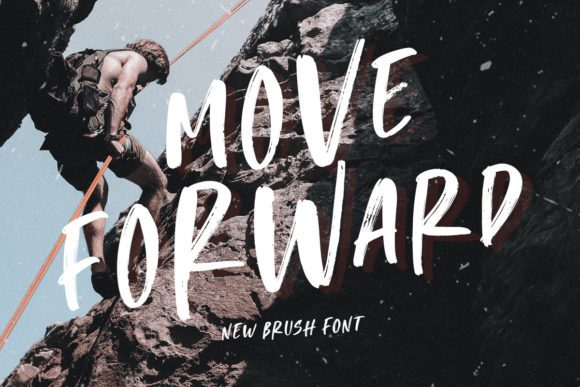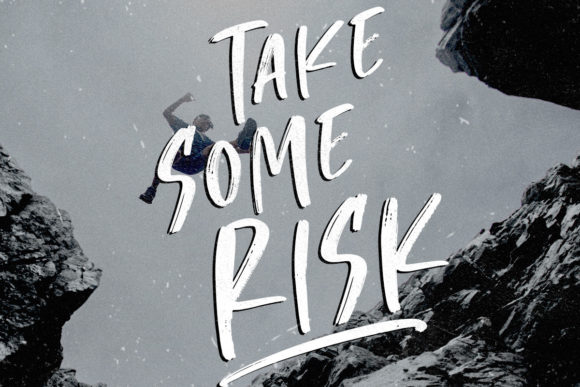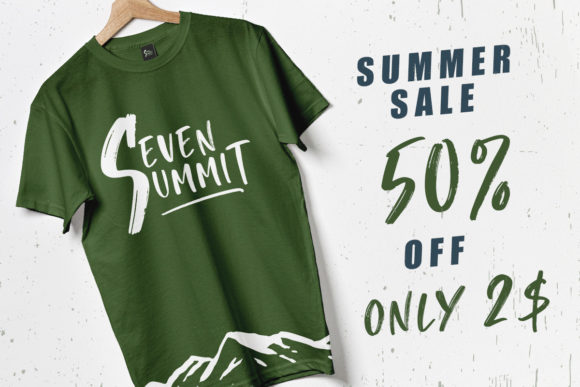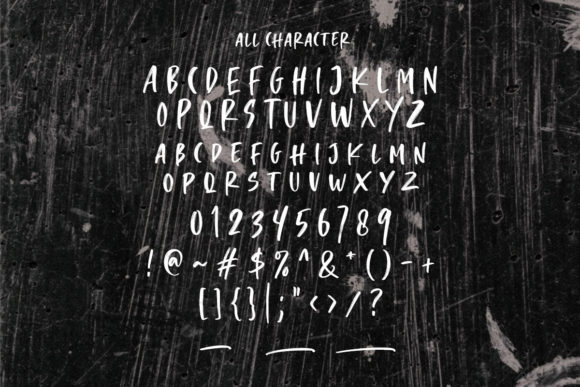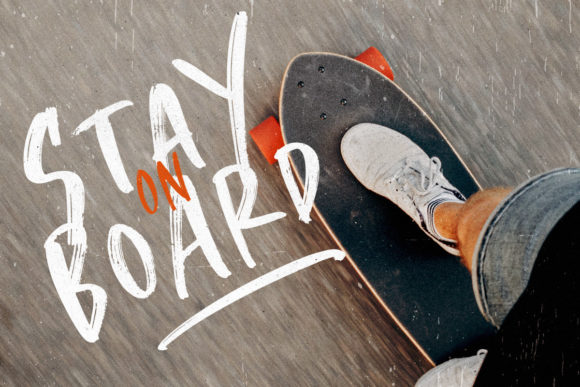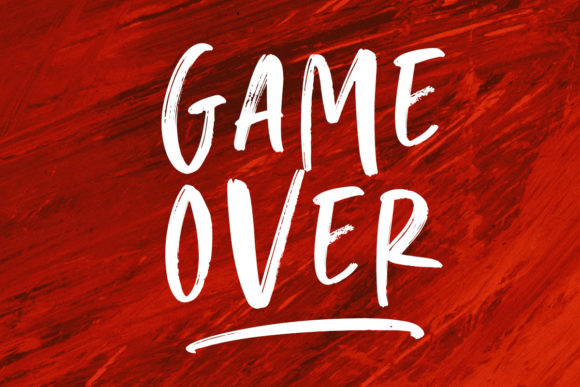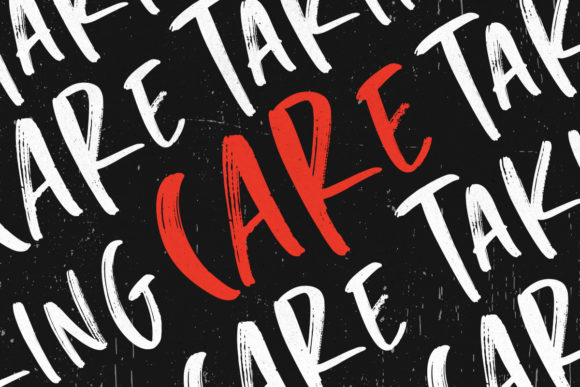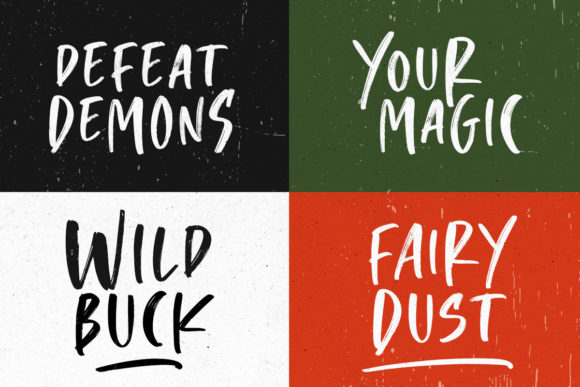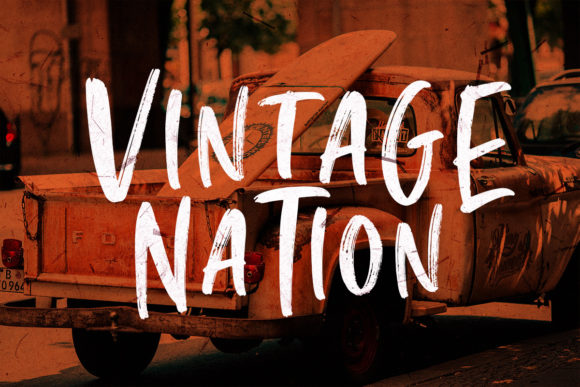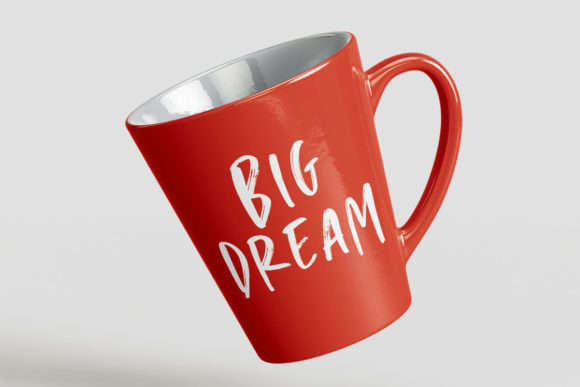
Move Forward Font
“Introducing Move Forward, an all caps font with a distinctive brushy texture. This versatile typeface features both uppercase and lowercase characters in varying heights, along with numbers, symbols, and comprehensive multilingual support. Move Forward is designed to add a dynamic and expressive touch to your creative projects.
The brushy texture of this font imparts a sense of energy and movement, making it a great choice for designs that aim to convey a bold and modern aesthetic. The combination of uppercase and lowercase characters with different heights adds visual interest and diversity to your typography.
Whether you’re working on branding, posters, social media graphics, or any other design project, Move Forward provides the flexibility and style needed to make a statement. The inclusion of numbers and symbols further enhances the font’s usability, ensuring it meets the demands of a wide range of creative applications.
Enjoy the freedom to express yourself across various languages, as Move Forward offers extensive multilingual support. This feature makes the font suitable for projects with diverse audiences, allowing you to communicate your message effectively and with style.
Elevate your designs with the bold and textured allure of Move Forward, where every character reflects a forward-moving spirit. Let this font be the catalyst for adding dynamism and character to your typographic compositions.”